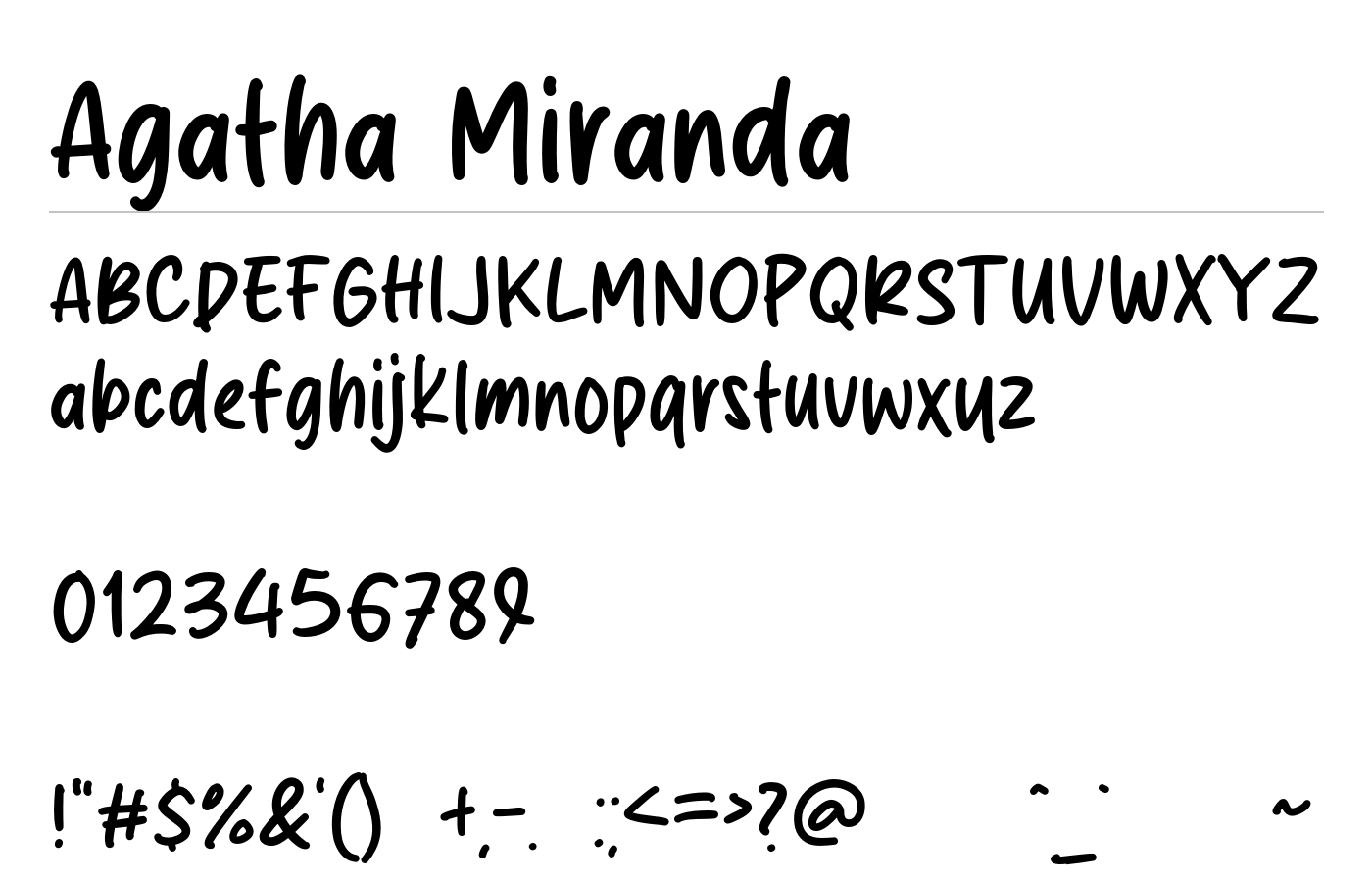
Agatha Miranda is a playful and casual handwritten sans serif font with a friendly and approachable feel. Its smooth, rounded strokes and moderate x-height make it easy to read, while the slightly uneven, natural letterforms add a personal, informal touch. This font works great for creative projects, children’s materials, and branding that seeks a warm, inviting personality.
Agatha Miranda Font
About Agatha Miranda Font